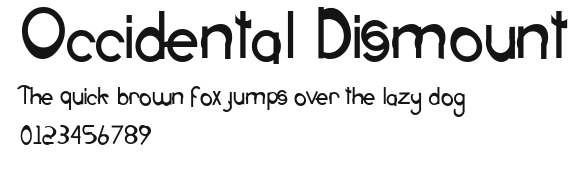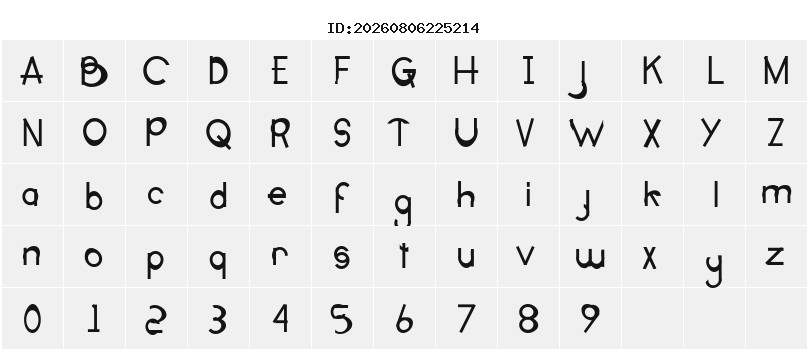
Occidental Dismount Preview
• Font Name: Occidental Dismount
• Full Font Name: Occidental Dismount
• PostScript Name: OccidentalDismount
About Occidental Dismount.ttf
Occidental Dismount.ttf is a modern, elegant sans-serif font designed for ultimate readability and visual harmony. Perfect for branding, headlines, web design, and print materials.